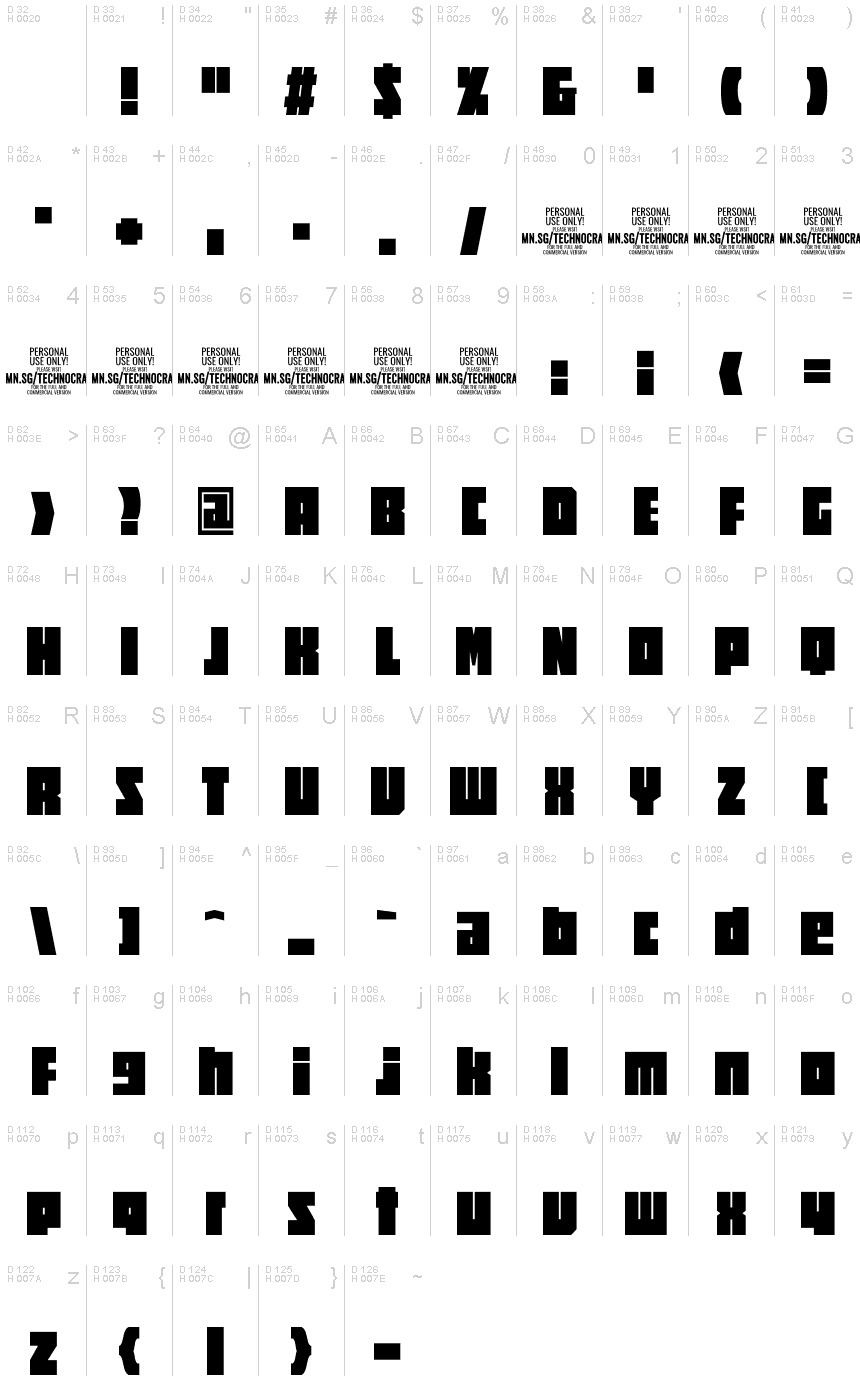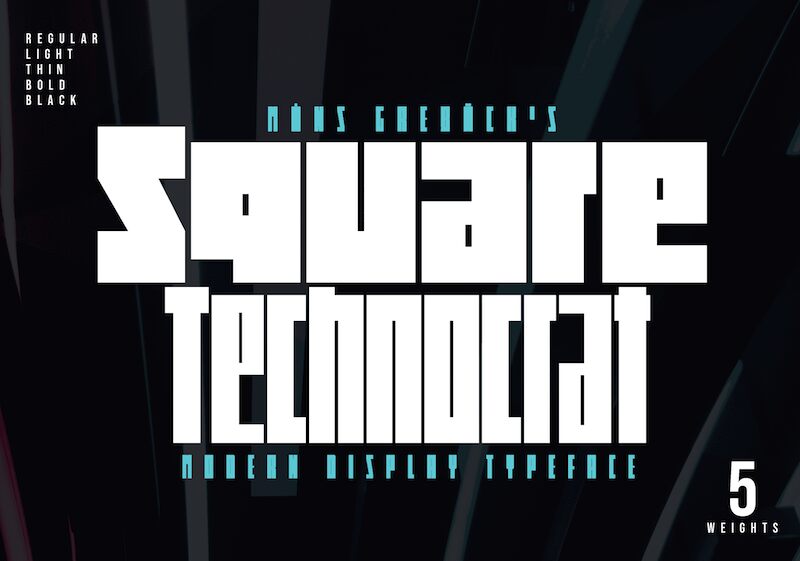
Square Technocrat PERSONAL Bold
Square Technocrat Bold, a display font designed by Mans Greback, is the epitome of structure and modernity. With its sharp, geometric shapes and techno style, it embodies strength and stability. Drawing inspiration from cube-like forms and contemporary architecture, this extra-bold font family is perfect for projects that demand a powerful presence.
Whether you're designing logos, posters, or website headers, Square Technocrat Bold's condensed width adds an extra touch of sleekness to your creations.
Let your designs stand out with this striking typeface that exudes confidence and innovation.